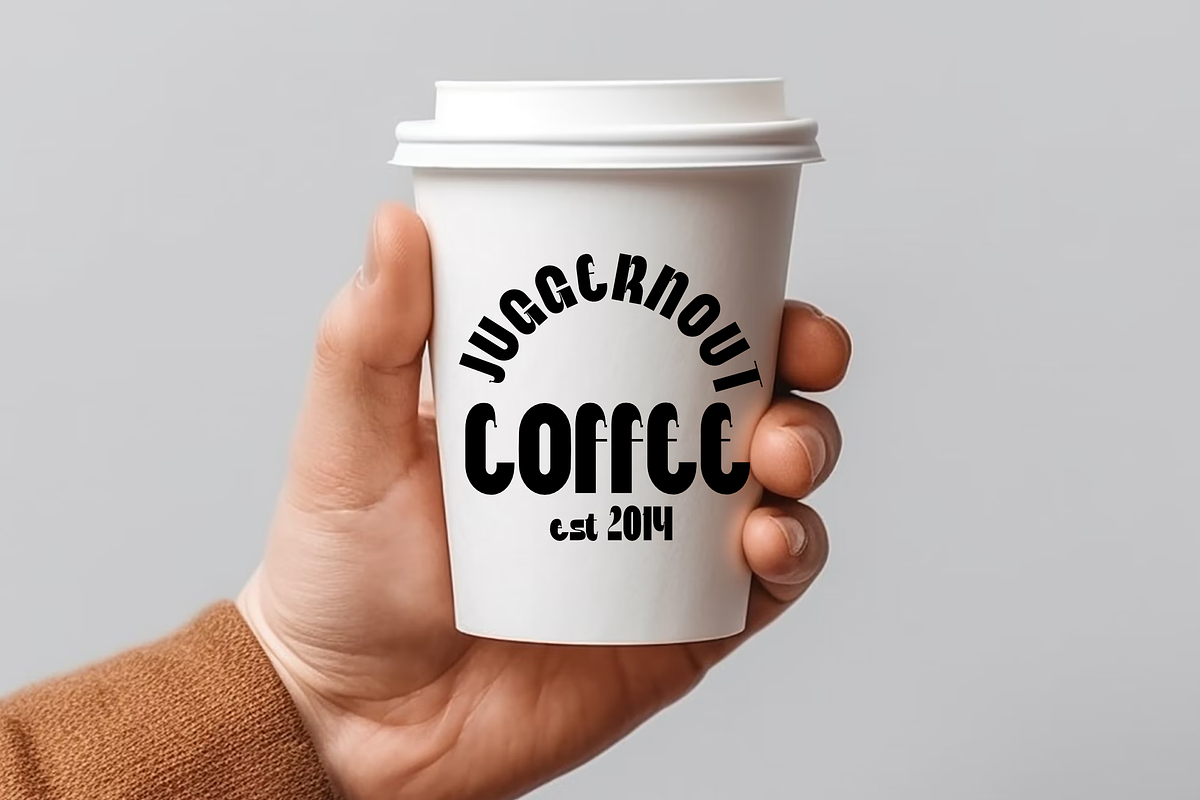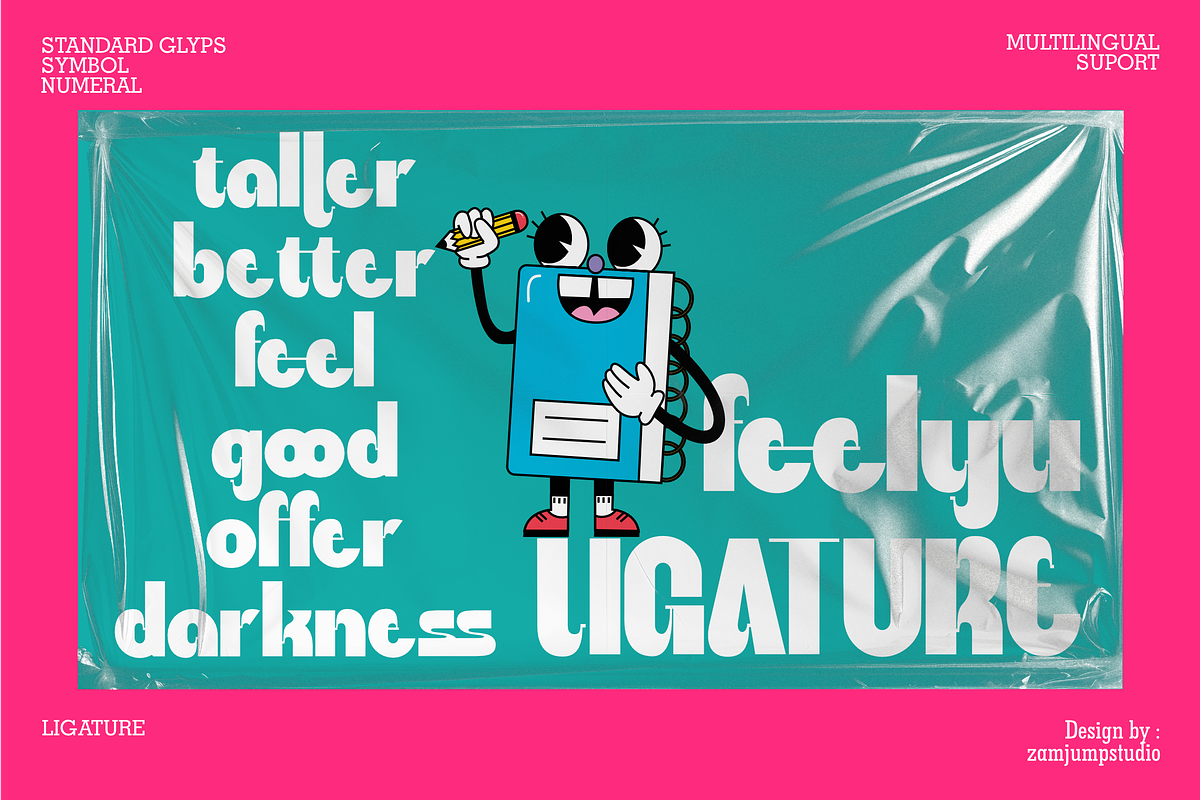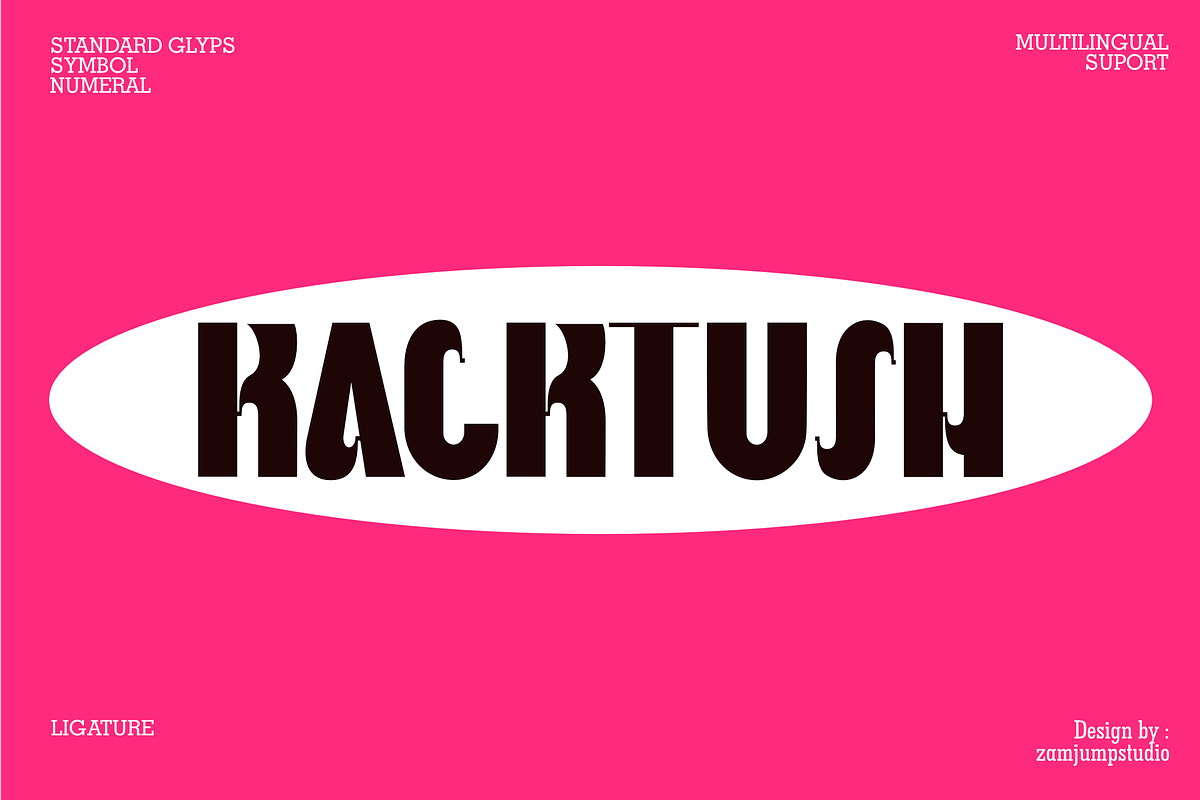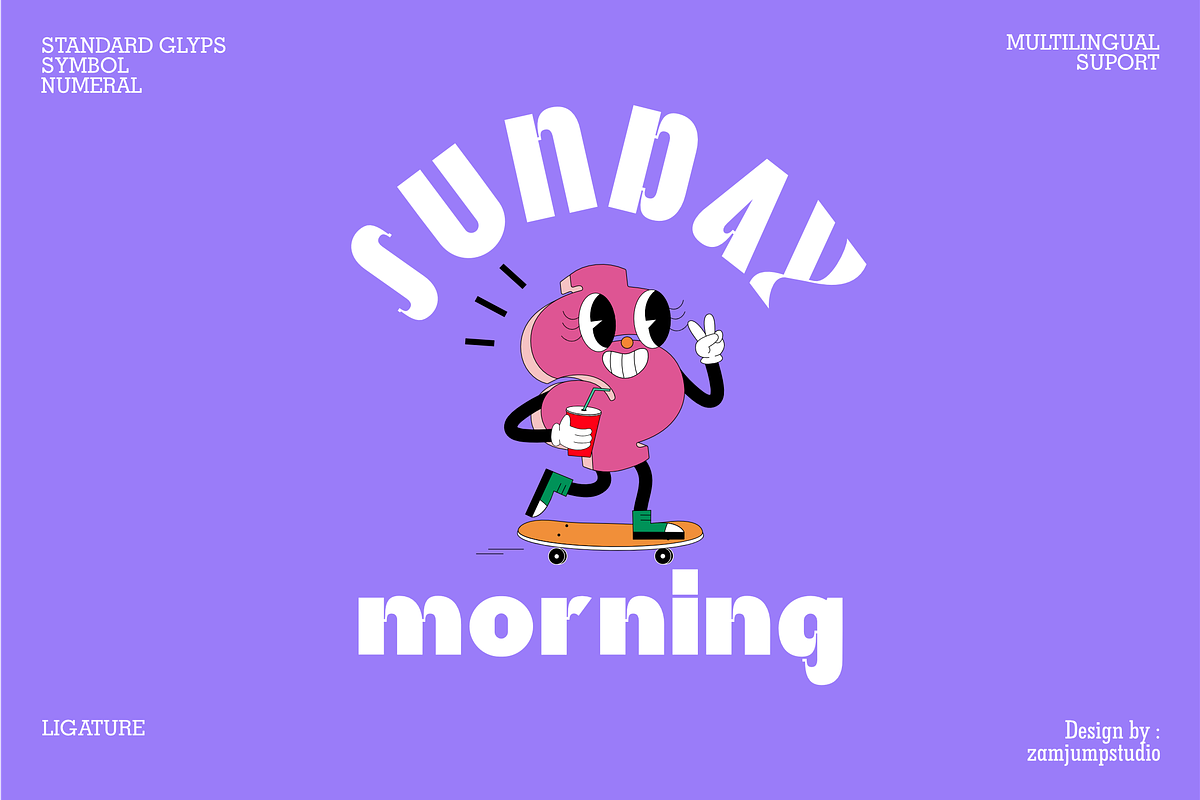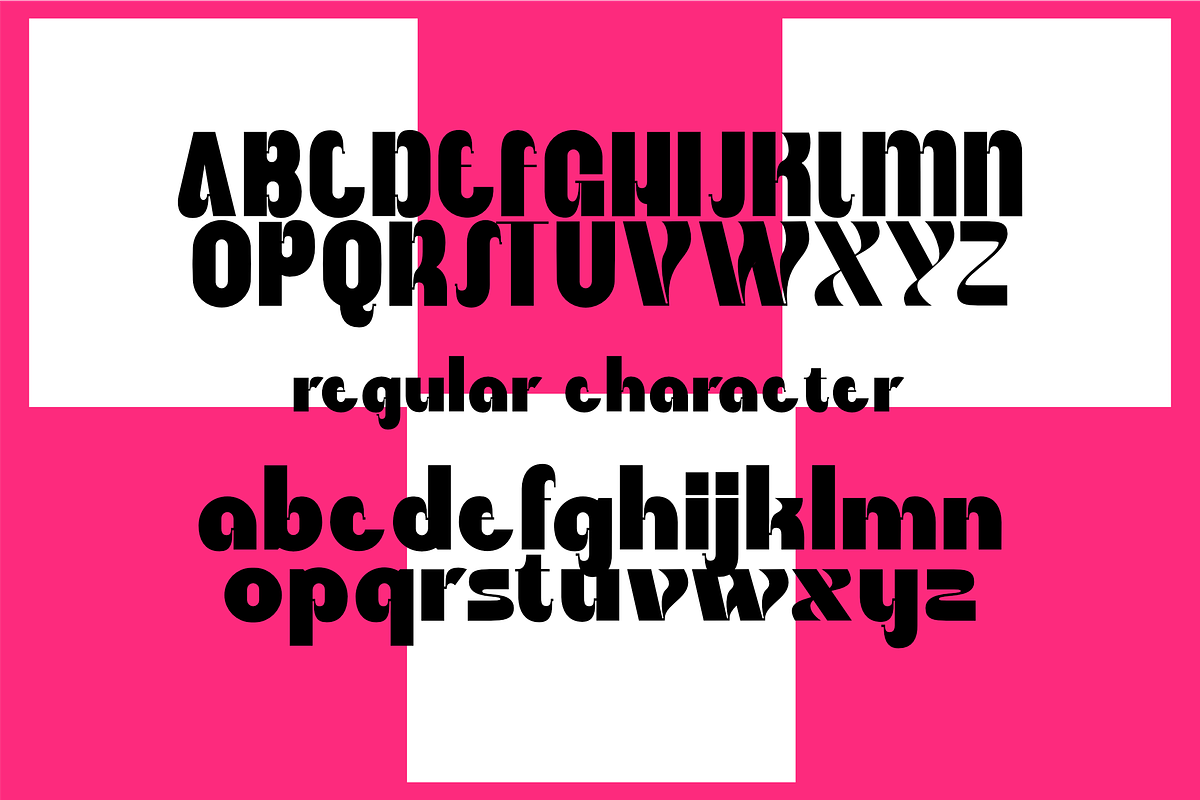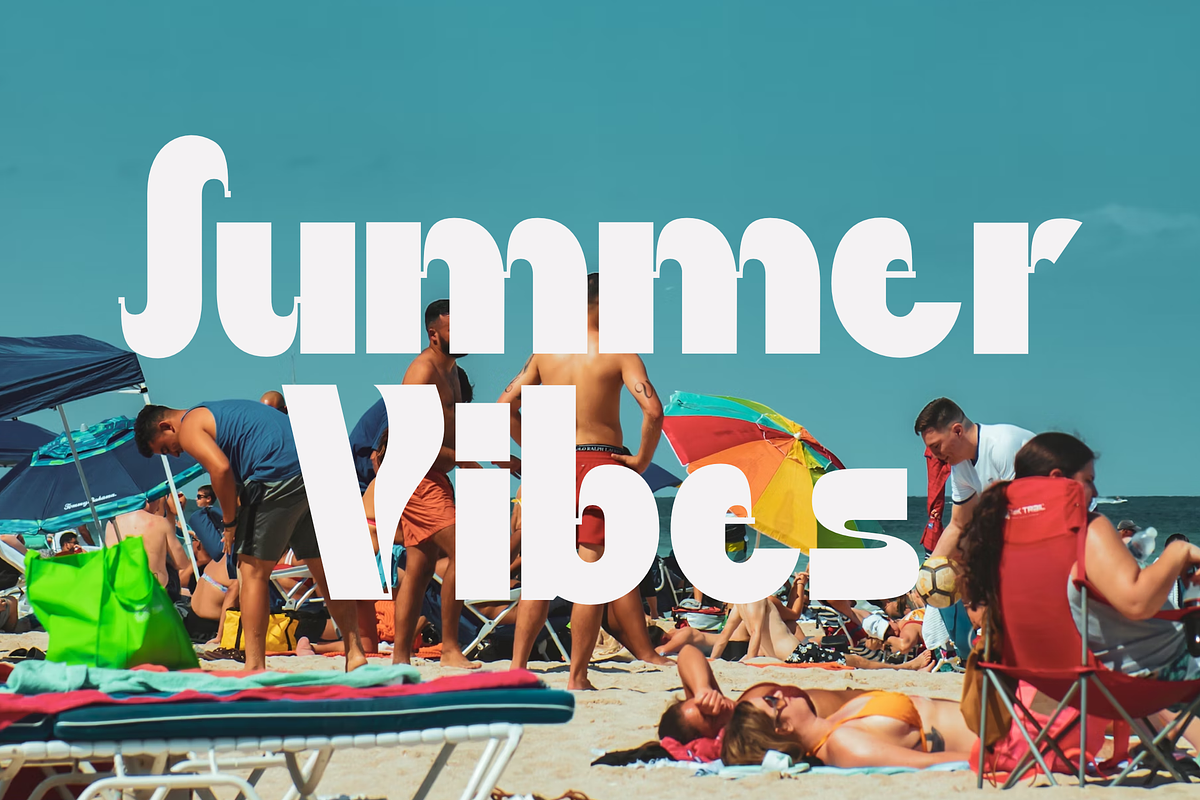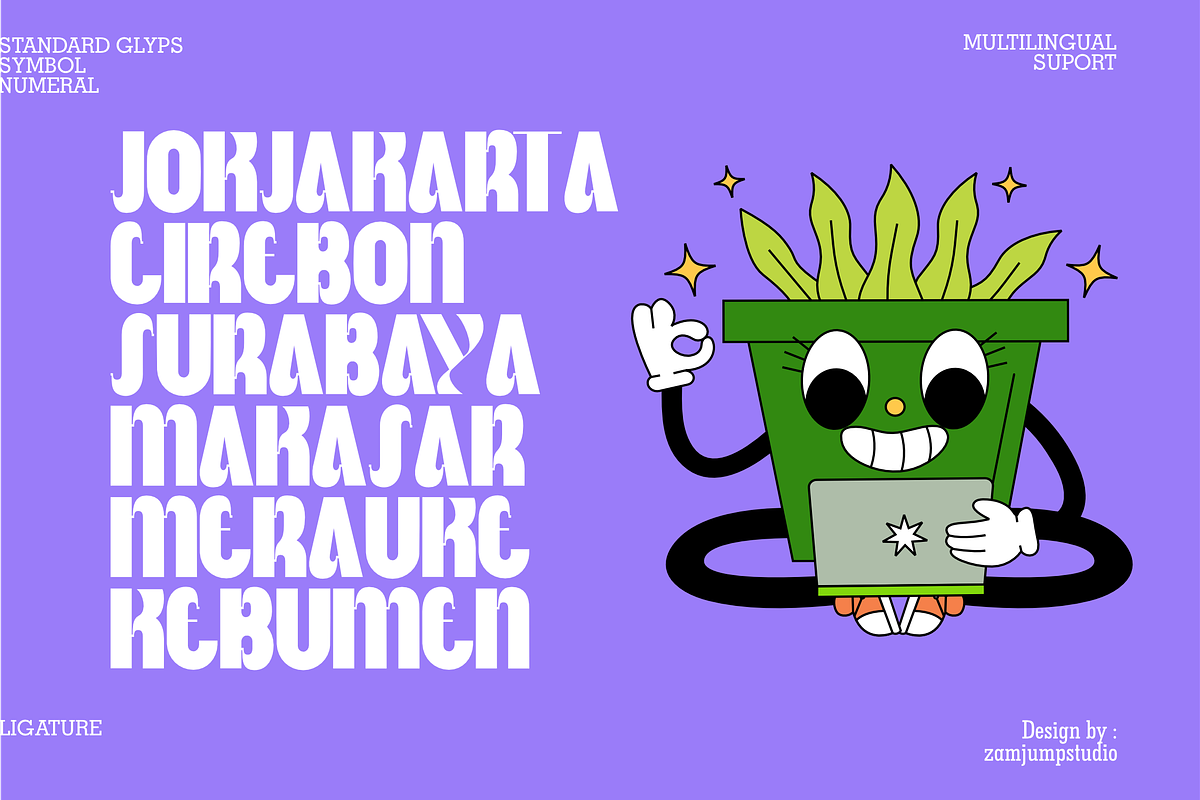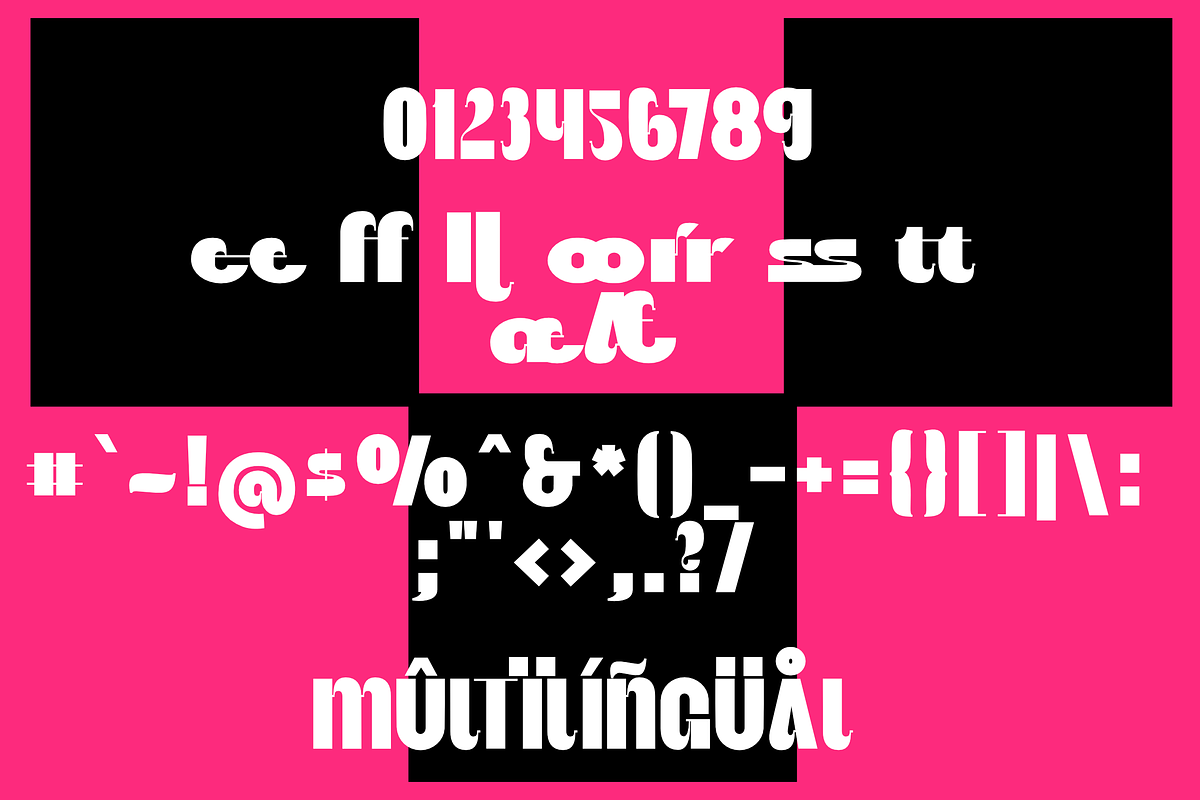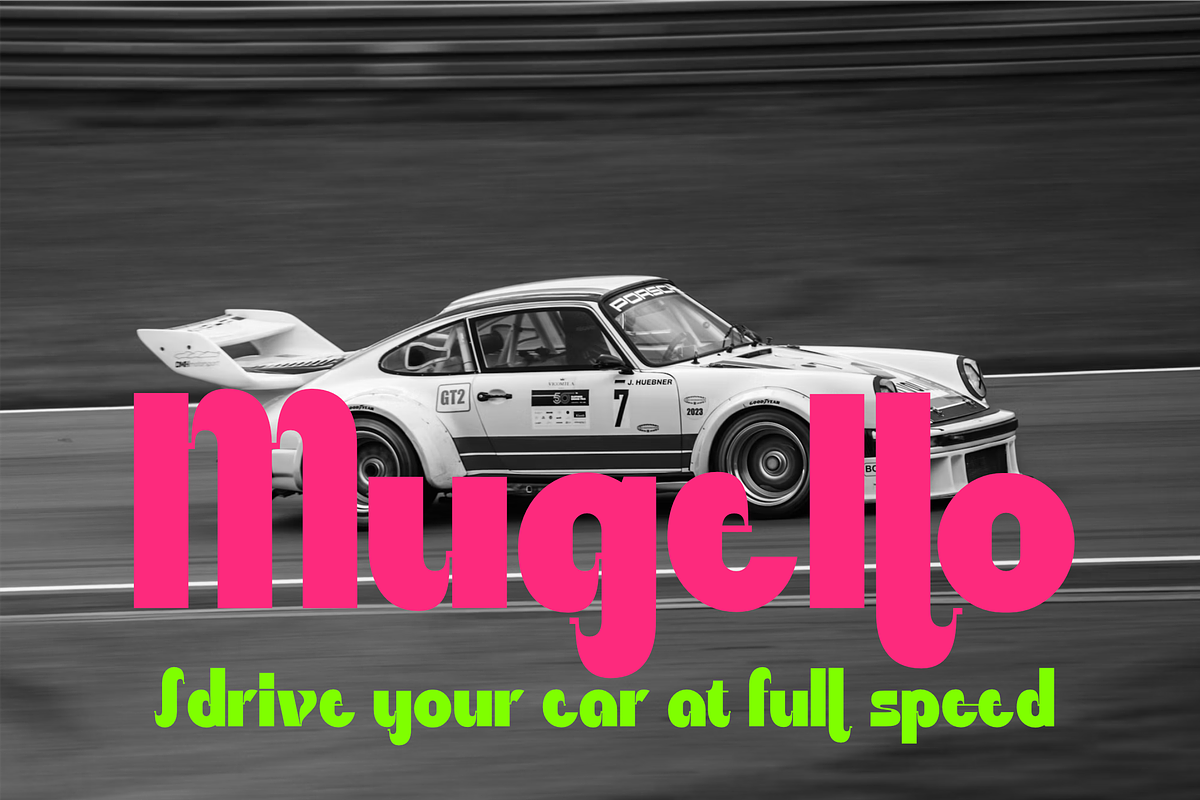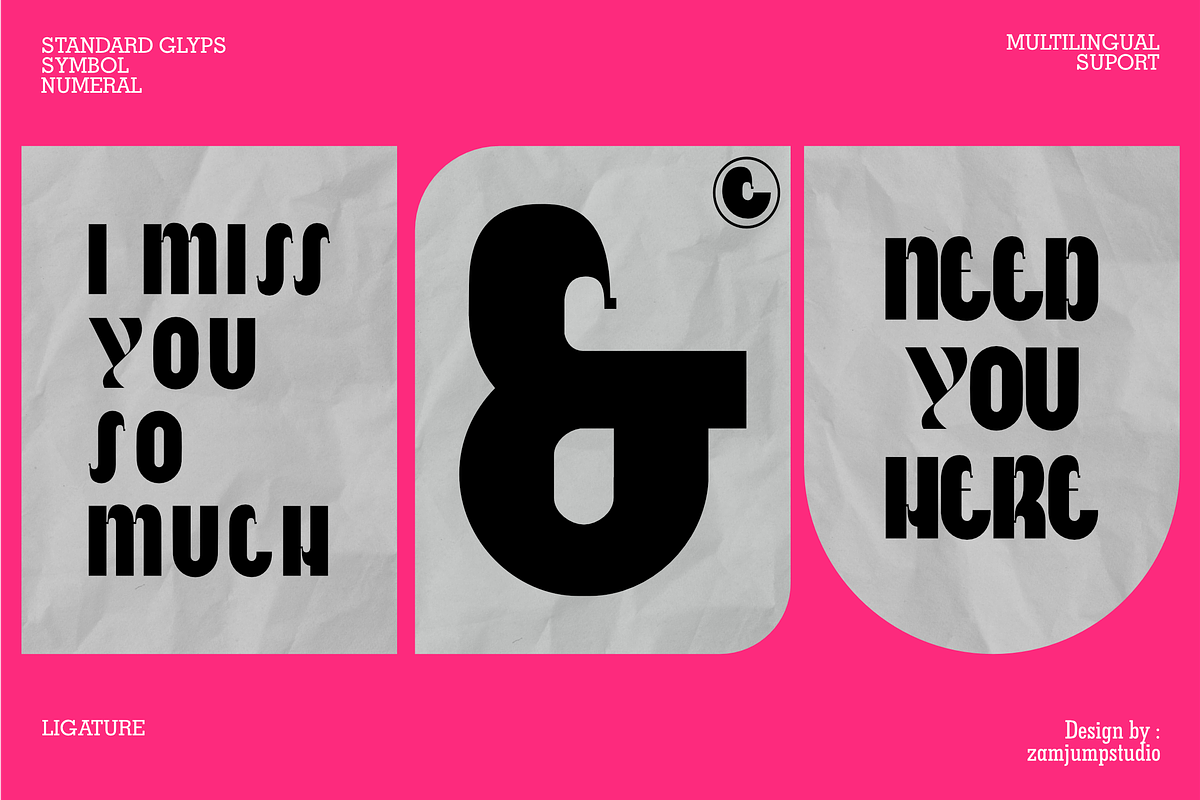
Fellyu - Unique Bold Display
Feelyu is a unique and versatile modern sans display font. With its clean and simple style, this font brings a cheerful and friendly touch to your designs. Feelyu also includes stylish ligature features, making it a great choice for a wide range of creative projects, including logos, product labels, posters, and more. Whether you’re aiming for a bold statement or a fun and inviting look, Feelyu is the perfect font to enhance your design aesthetics.